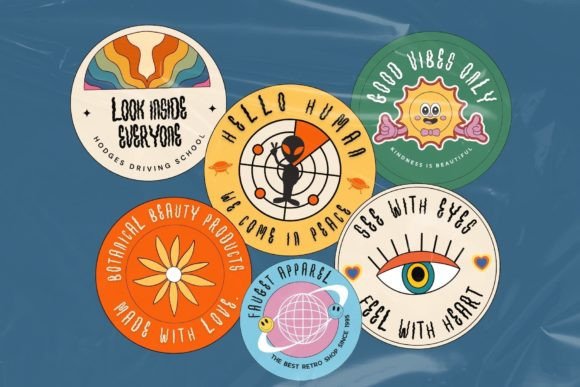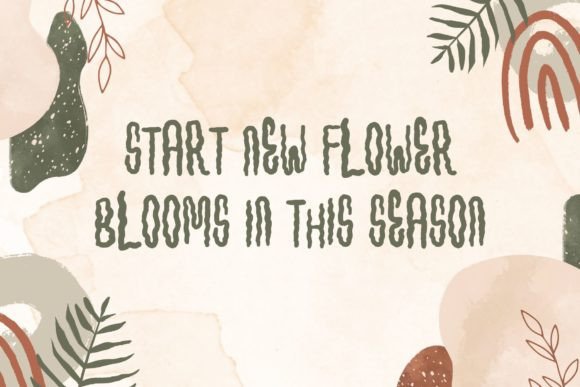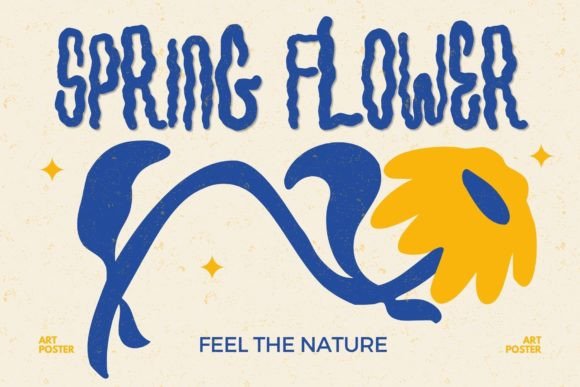
Introduction to Avoid Font
Avoid is a bulky and attractive sans-serif font that is bold, impactful, and impossible to ignore.
With thick, powerful strokes and striking letterforms, it demands attention and makes a statement Whether used for headlines, posters, or branding, it conveys strength, confidence, and a sense of modernity.